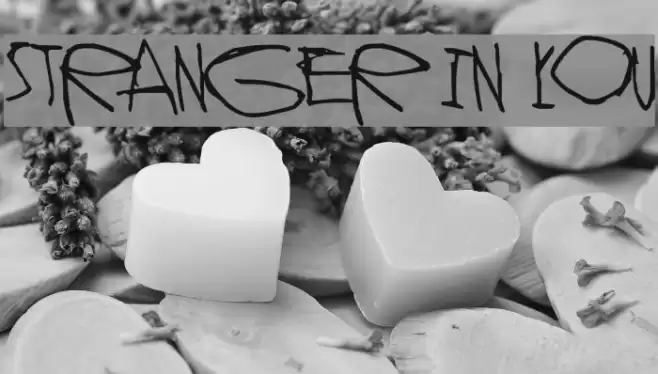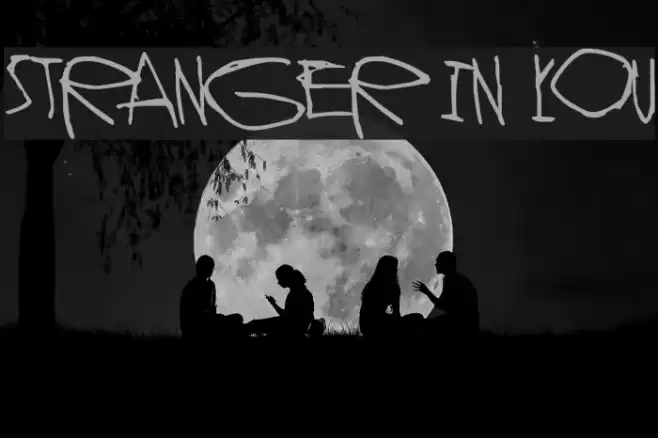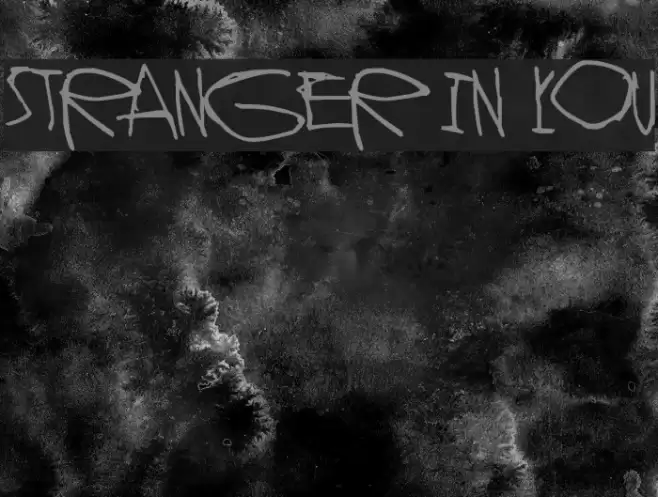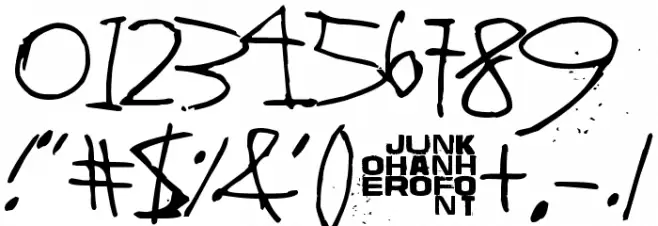
Stranger In You Font
Stranger In You Description
This font exhibits a raw, hand-drawn style with an edgy and rebellious feel. The characters are uneven and irregular, giving it a distinctly grunge aesthetic. The strokes are bold and vary in thickness, adding to the chaotic and energetic vibe. The uppercase and lowercase letters maintain a consistent style, with exaggerated curves and sharp angles. Numbers and special characters follow the same design principles, ensuring a cohesive look across all glyphs. This font is ideal for projects that require a bold statement or an alternative, artistic touch.
A bold, hand-drawn font with a grunge and rebellious aesthetic from Uncategorized fonts.
- Proposed Projects: Album covers, streetwear branding, event posters, and alternative magazine layouts.
- Overall Style: Grunge, Artistic